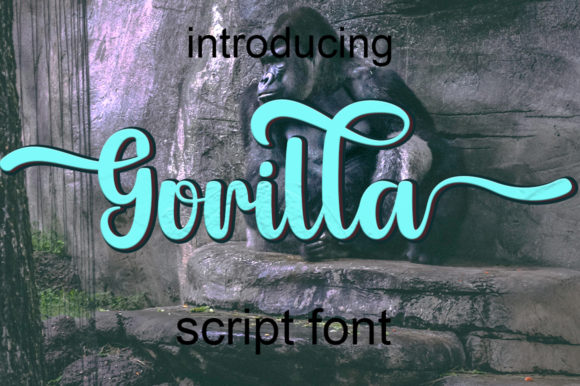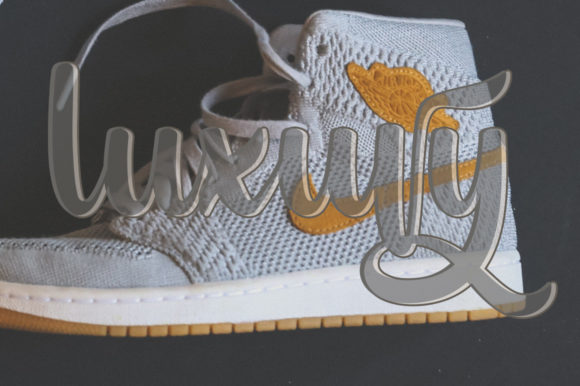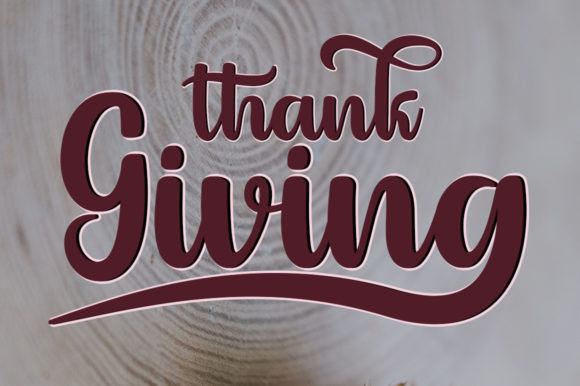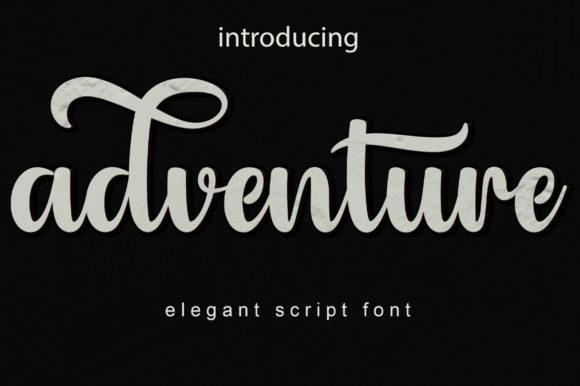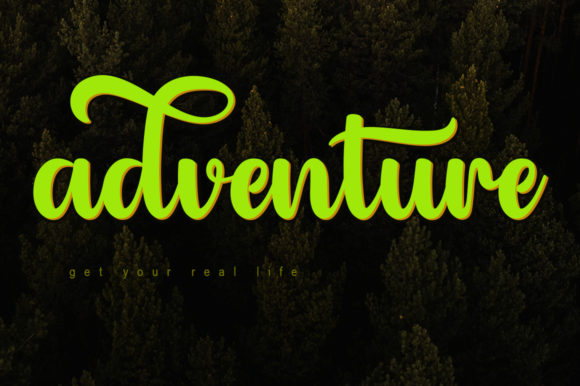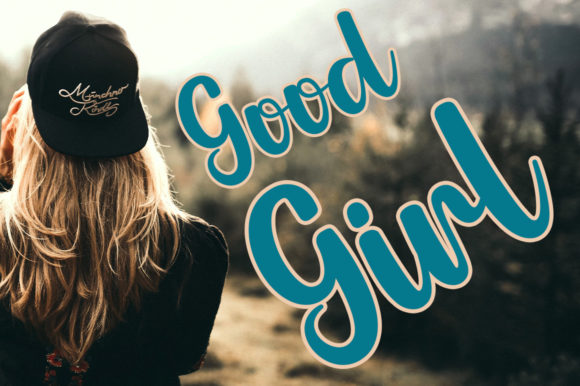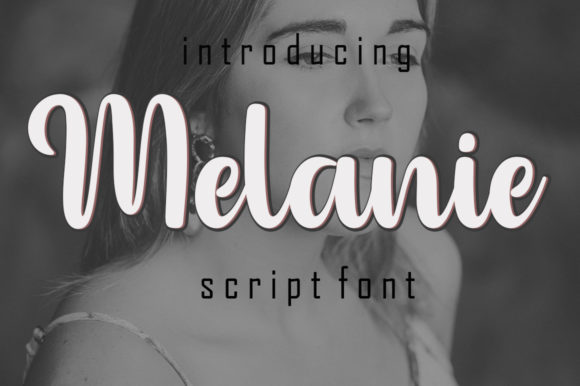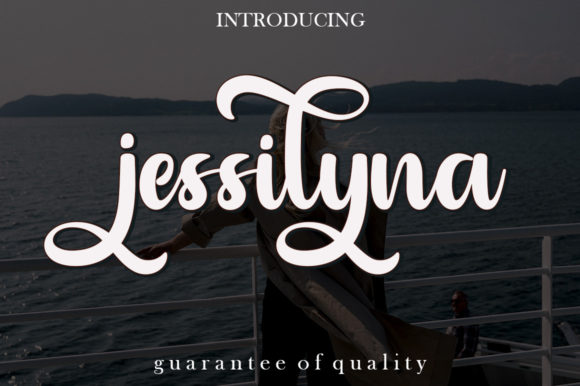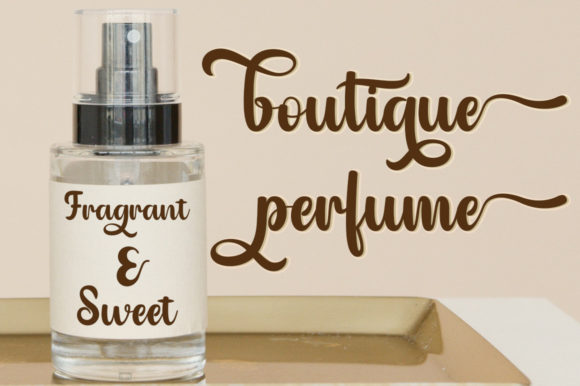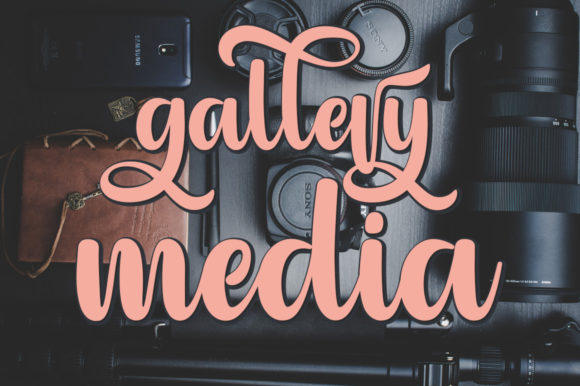
Gorilla Font
About Gorilla Font
Gorilla is a stylish and natural-looking handwritten font. Its characters are perfect for adding a luxurious and personal touch to any crafty project.